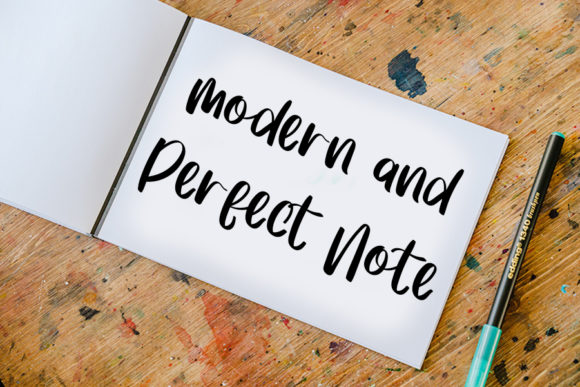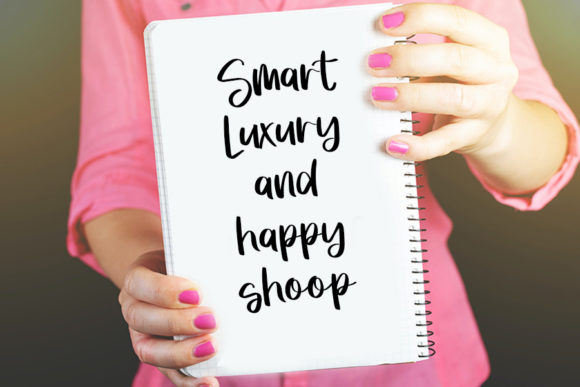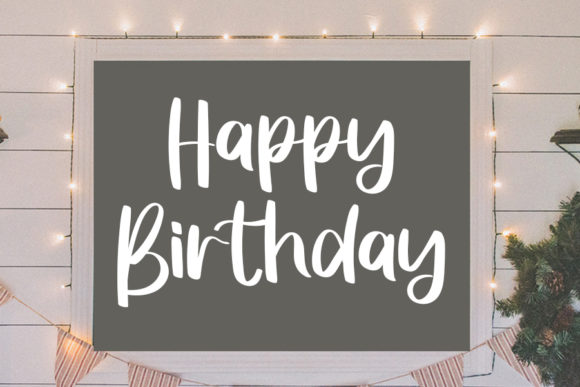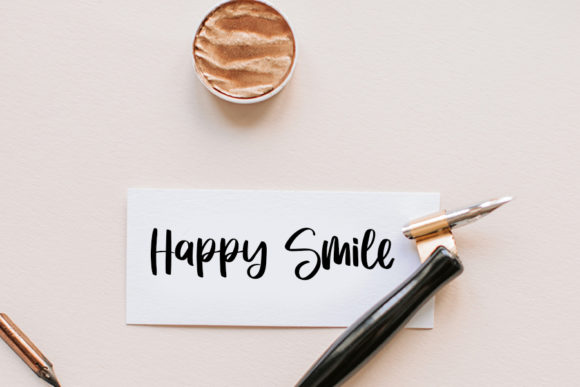
Introduction to Rachels Snowlover Font
Have you ever stared at a blank canvas, waiting for inspiration to strike? Maybe you’re working on a creative project and need that perfect font to bring it to life. I’m sure many designers can relate to this feeling, and that’s exactly why I’m excited to introduce you to the lovely Rachels Snowlover Font.
This timeless handwritten font is a game-changer for designers looking to add a personal touch to their work. With its unique and beautiful touch, every letter comes alive, making it the perfect choice for eye-catching logos, branding, and quotes. What sets Rachels Snowlover Font apart is its high-quality design, making it a valuable resource for any creative project.
Key Features of Rachels Snowlover Font
- Its unique, hand-drawn design elements make Rachels Snowlover Font a standout choice for designers seeking a creative and personalized touch.
Honest Review: Rachels Snowlover Font
As a designer, I’m always on the lookout for high-quality design resources that can elevate my creative projects. Recently, I stumbled upon the Rachels Snowlover Font, and I must say, it’s a gem.
What works well: ✨ The font is incredibly versatile and can be used for a variety of projects, from winter-themed designs to elegant invitations. The intricate details and delicate brushstrokes make it perfect for adding a touch of whimsy to your design.
However, I do have a few limitations to note: ⚠️ The font may not be suitable for large block of text, as it can become difficult to read. Additionally, the intricate details may not print well on low-resolution paper.
Overall, I’m thoroughly impressed with the Rachels Snowlover Font. It’s a valuable addition to any designer’s toolkit and a must-have for any winter-themed or elegant design project.
- Perfect for creative projects that require a touch of elegance and whimsy.
- High-quality design resource that’s perfect for designers of all levels.
Tips for Getting the Most Out of Rachels Snowlover Font
To get the most out of Rachels Snowlover Font, use it in conjunction with a high-quality design resource, such as a background image or a vector graphic. Experiment with different font sizes, colors, and styles to create a unique and eye-catching design. You can also use the font’s transparent background feature to create a sense of depth and dimension in your design.
Rachels Snowlover Font is a versatile font that can be used in a variety of creative projects, including wedding invitations, holiday cards, and social media graphics. Its high quality and transparent background feature make it an ideal choice for designers who want to create professional-looking designs with a personal touch.